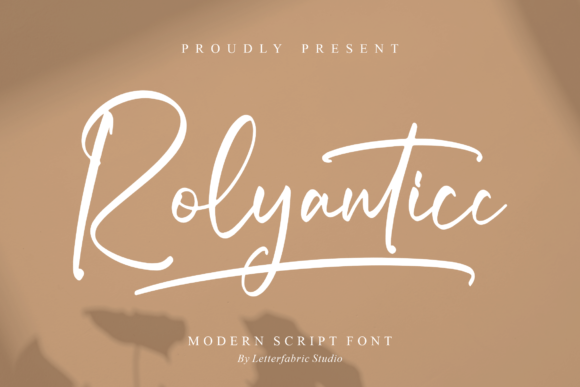
Introducing Rolyanticc, the Dazzling Script Font that Will Enchant Your Designs!
Welcome to the world of Rolyanticc, a breathtaking script font that will captivate your audience with its intricate details and timeless beauty. Inspired by the elegance of classic calligraphy, this font exudes a touch of sophistication and charm that will elevate your designs to new heights.
With its sweeping curves and delicate strokes, Rolyanticc possesses a unique character that sets it apart from the ordinary. Whether you're designing a wedding invitation, crafting a brand logo, or creating eye-catching social media posts, Rolyanticc will add a touch of magic to your creations.
Unleash Your Creativity with Endless Possibilities:
Rolyanticc is not just a font; it's an artistic journey that invites you to explore the boundless realms of your imagination. Its versatility knows no bounds, allowing you to effortlessly blend it with various design styles, from vintage to modern, and everything in between.
Effortless Legibility and Seamless Flow:
Rolyanticc is meticulously crafted to ensure optimal legibility, even in small sizes. Its carefully designed letterforms maintain clarity and distinction, ensuring your messages are communicated with precision and elegance. The smooth flow of the font creates a visual symphony that guides the reader's eye effortlessly through your text.
A Treasure for Designers and Creative Professionals:
Whether you're a seasoned designer or just starting your creative journey, Rolyanticc will become your trusted companion. Its timeless appeal and versatility make it an indispensable asset for any design toolkit, helping you bring your visions to life with stunning results.